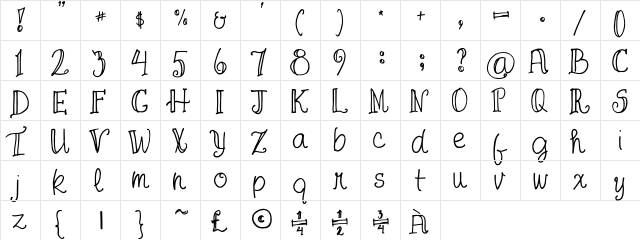
FG April Trial Regular
| Foundry | Ellinor at Font Garden |
| Designer | Ellinor Rapp |
Design Context for FG April Trial Typeface
FG April Trial is a composed and adaptable typeface that performs quietly and consistently across a wide range of design contexts.